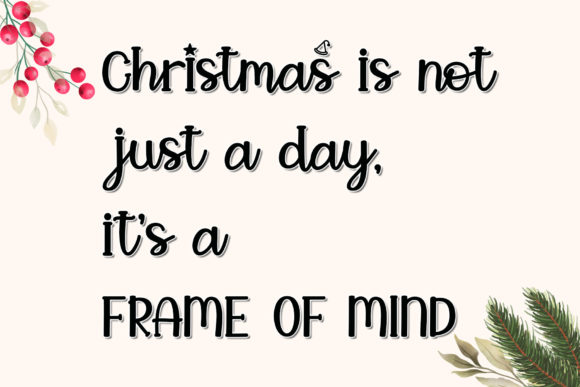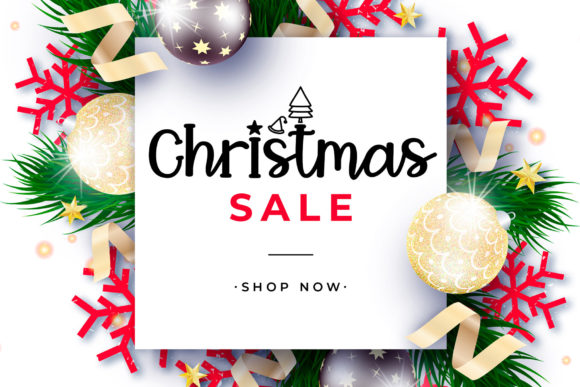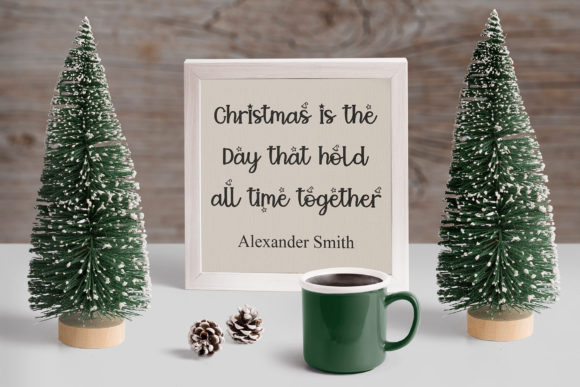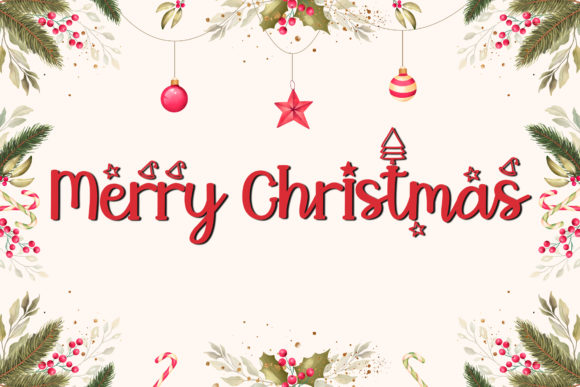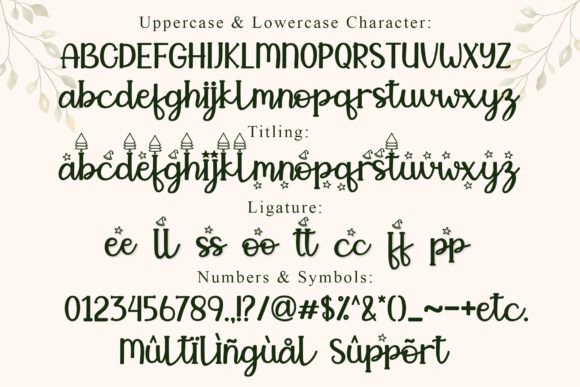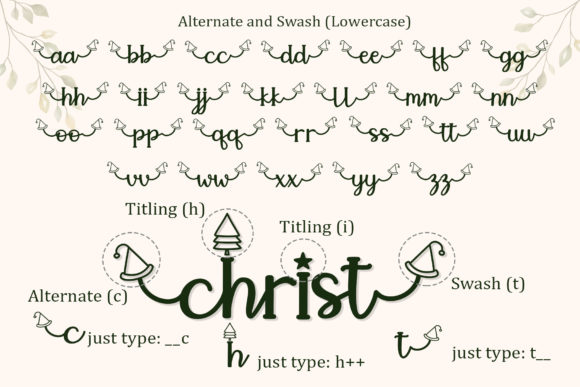
Unleash the Festive Spirit with Christmas Energy Font
Are you looking for a font that captures the essence of Christmas with a dash of whimsy and relaxation? Look no further than the Christmas Energy Font! This delightful script font is designed to bring a touch of festive cheer to your designs, and with its PUA encoding, you can easily access a wide range of glyphs and swashes to make your creations truly special.
What is Christmas Energy Font?
Christmas Energy Font is a unique and charming script font that embodies the carefree spirit of the holiday season. Its relaxed theme and lovely style make it perfect for a variety of design projects, from Christmas cards and invitations to holiday-themed crafts and digital products. With its whimsical flair, this font is sure to add a dash of festive fun to any design.
Key Features of Christmas Energy Font
- Whimsical Script Font: Christmas Energy Font features a playful, cursive script that’s perfect for adding a touch of personality to your designs.
- Relaxed Theme: The font’s relaxed theme gives it a laid-back, effortless feel that’s perfect for creating casual, festive designs.
- PUA Encoding: With PUA encoding, you can easily access a wide range of glyphs and swashes, making it simple to customize your designs and add unique touches.
- Lovely Style: The font’s lovely style makes it perfect for a variety of design projects, from elegant Christmas cards to playful holiday crafts.
Christmas Energy Font offers a range of benefits for designers and crafters, including:
- Ease of Use: With its PUA encoding, you can easily access a wide range of glyphs and swashes, making it simple to customize your designs and add unique touches.
- Versatility: The font’s whimsical script style and relaxed theme make it perfect for a variety of design projects, from digital products to print materials.
- Festive Fun: Christmas Energy Font is sure to add a dash of festive fun to any design, making it perfect for holiday-themed projects.
Ideas for Using Christmas Energy Font
There are countless ways to use Christmas Energy Font in your designs. Here are a few ideas to get you started:
- Christmas Cards and Invitations: Use Christmas Energy Font to create festive and fun Christmas cards and invitations that are sure to delight.
- Holiday Crafts: Add a touch of whimsy to your holiday crafts, such as ornaments, gift tags, and decorations, with Christmas Energy Font.
- Digital Products: Use Christmas Energy Font to create festive and fun digital products, such as holiday-themed planners, journals, and wallpapers.
Tips for Getting the Most Out of Christmas Energy Font
To get the most out of Christmas Energy Font, be sure to:
- Experiment with Different Sizes and Colors: Try out different sizes and colors to see how Christmas Energy Font looks in different contexts.
- Combine with Other Fonts: Combine Christmas Energy Font with other fonts to create unique and interesting typography.
- Use the Glyphs and Swashes: Take advantage of the font’s PUA encoding to access a wide range of glyphs and swashes and add unique touches to your designs.